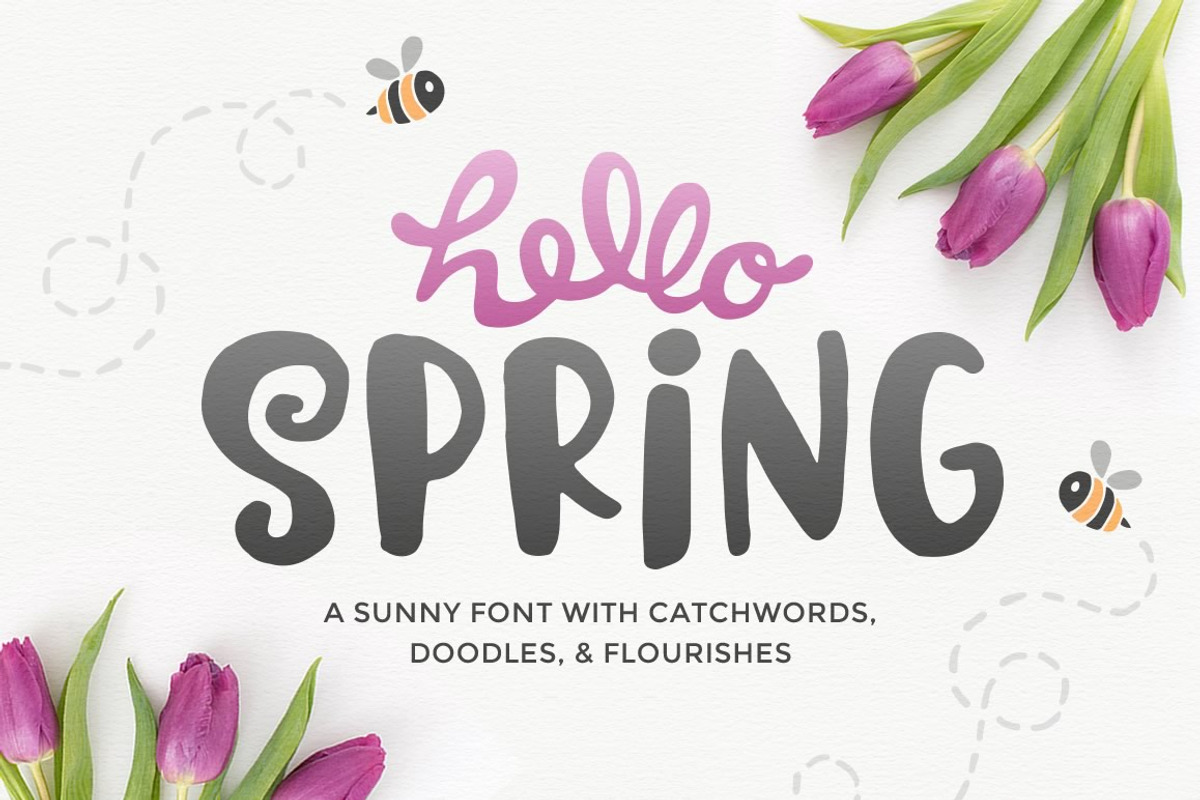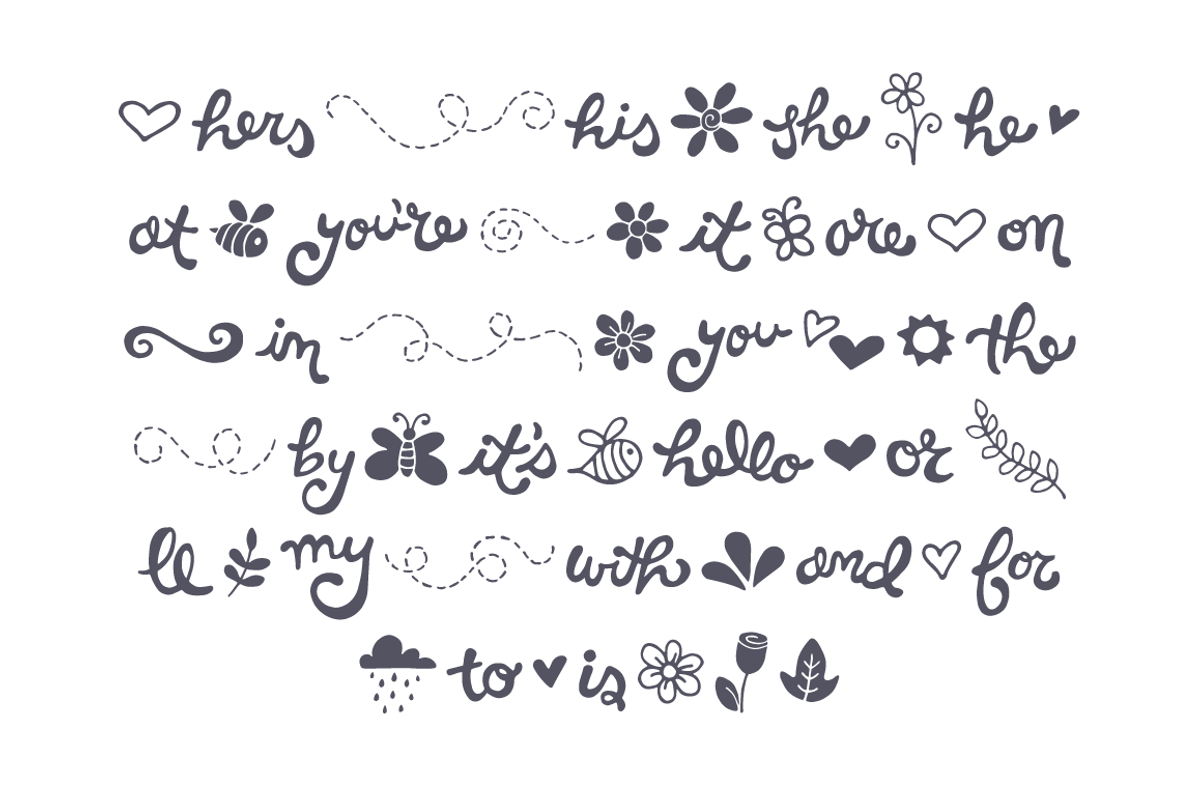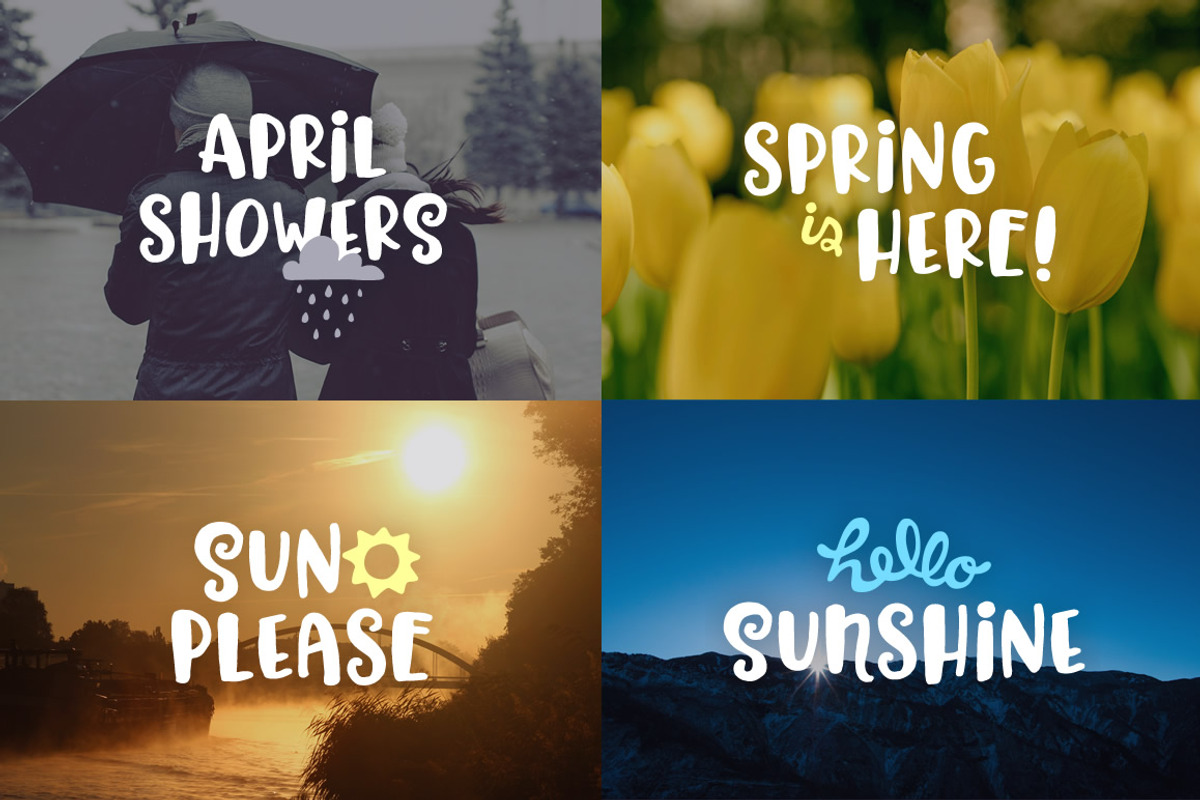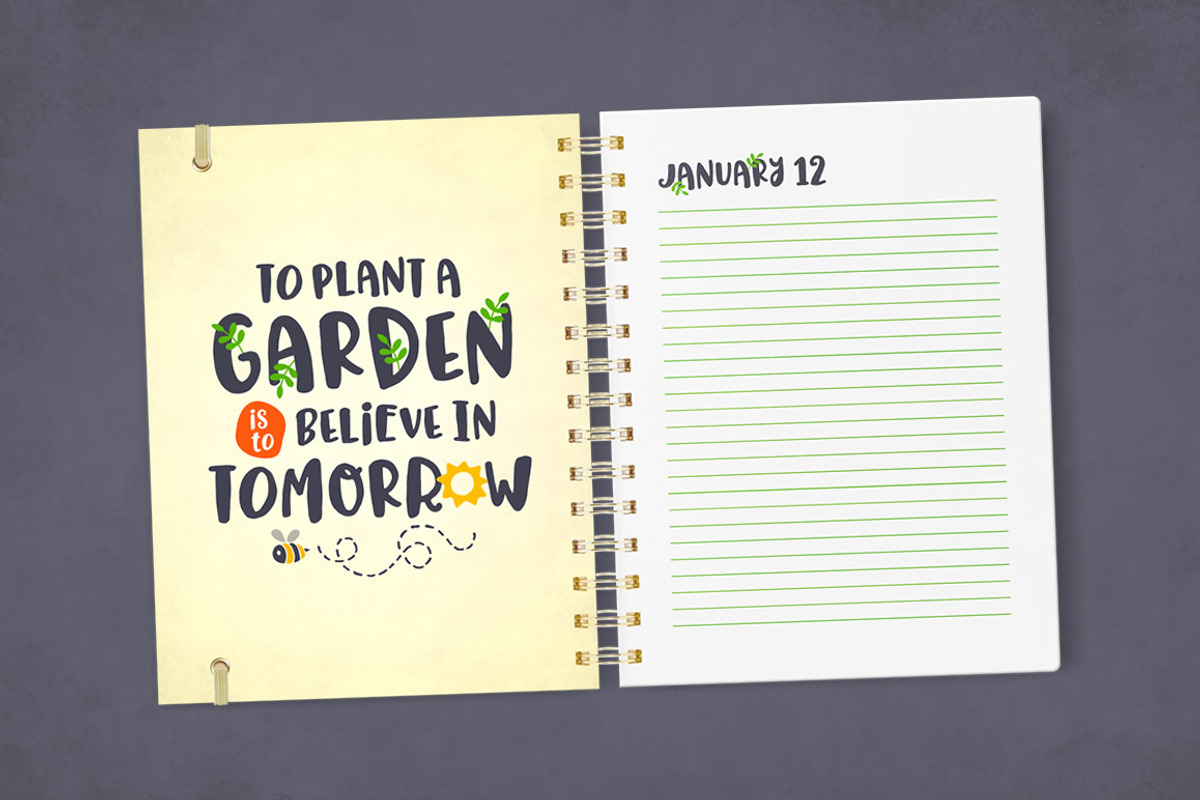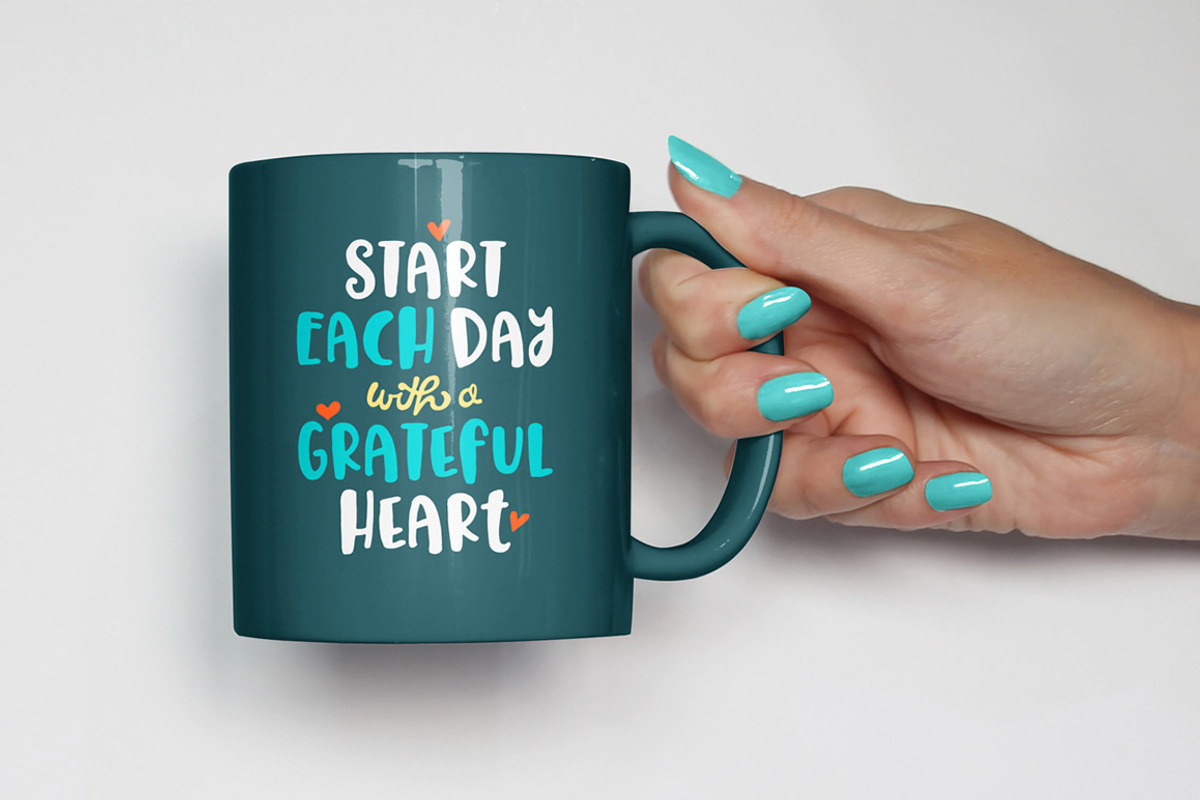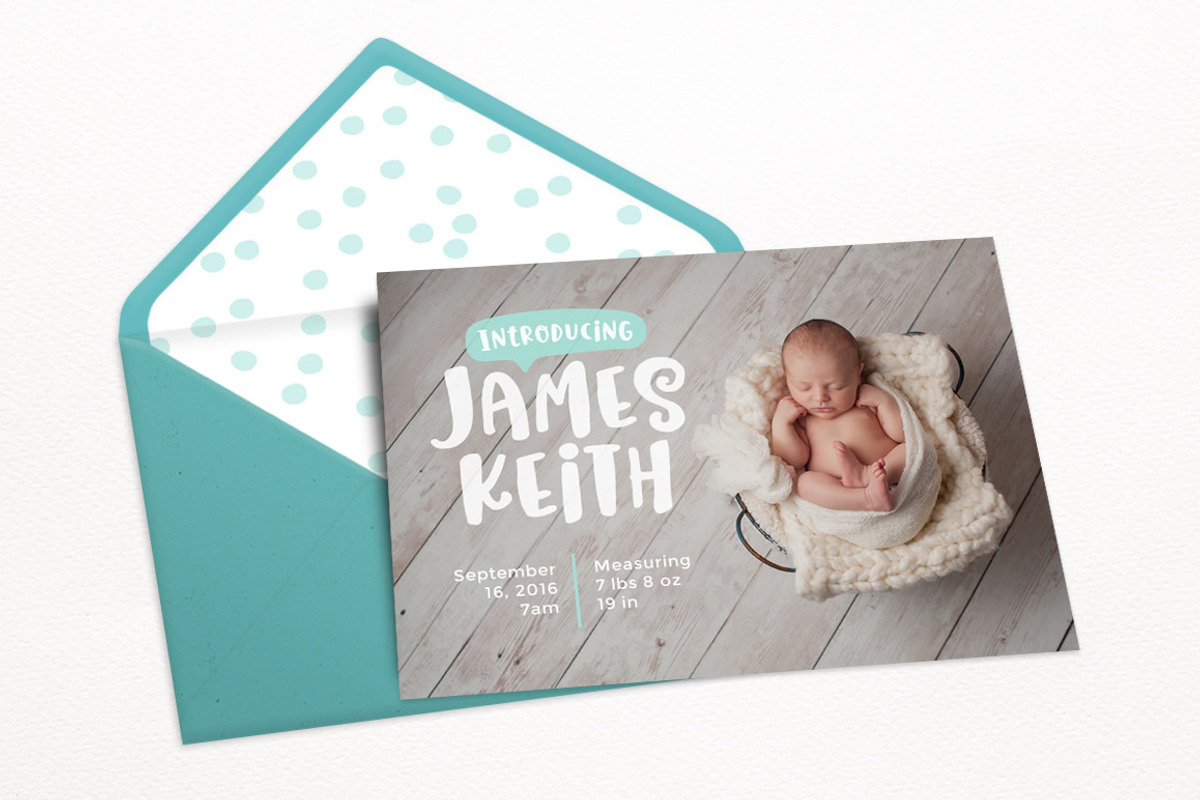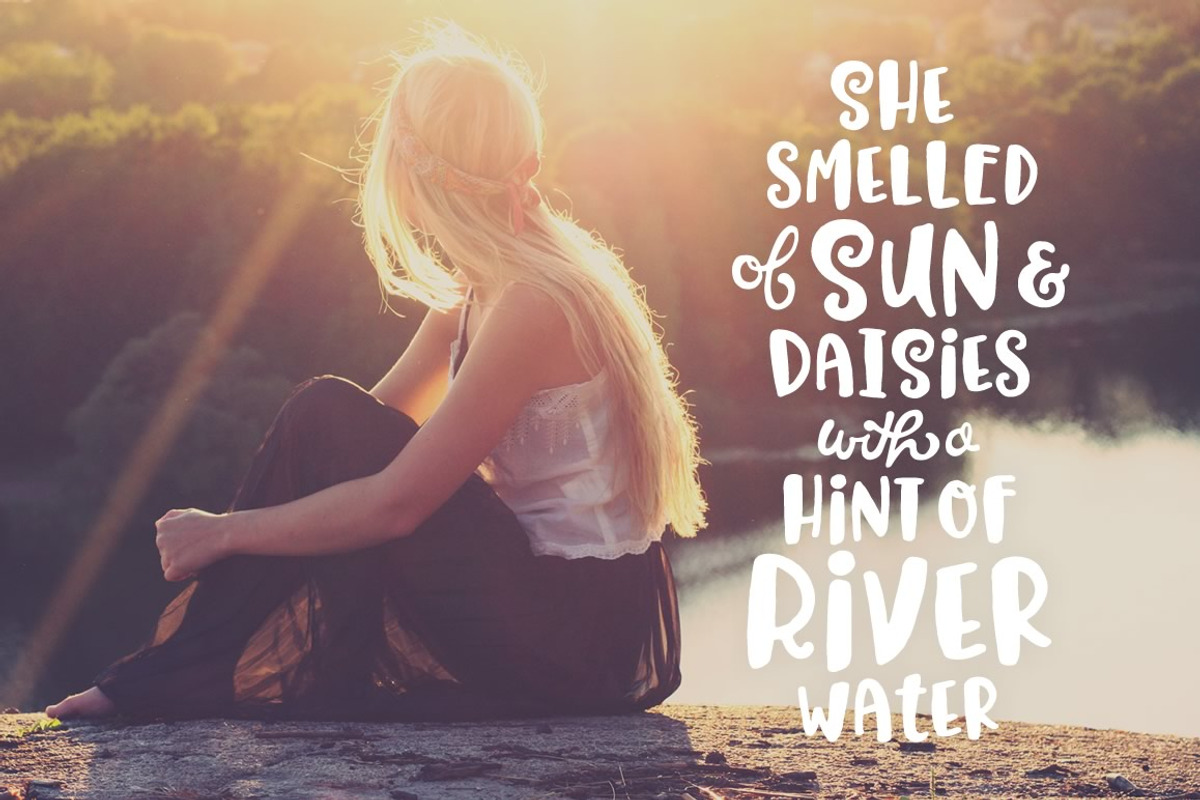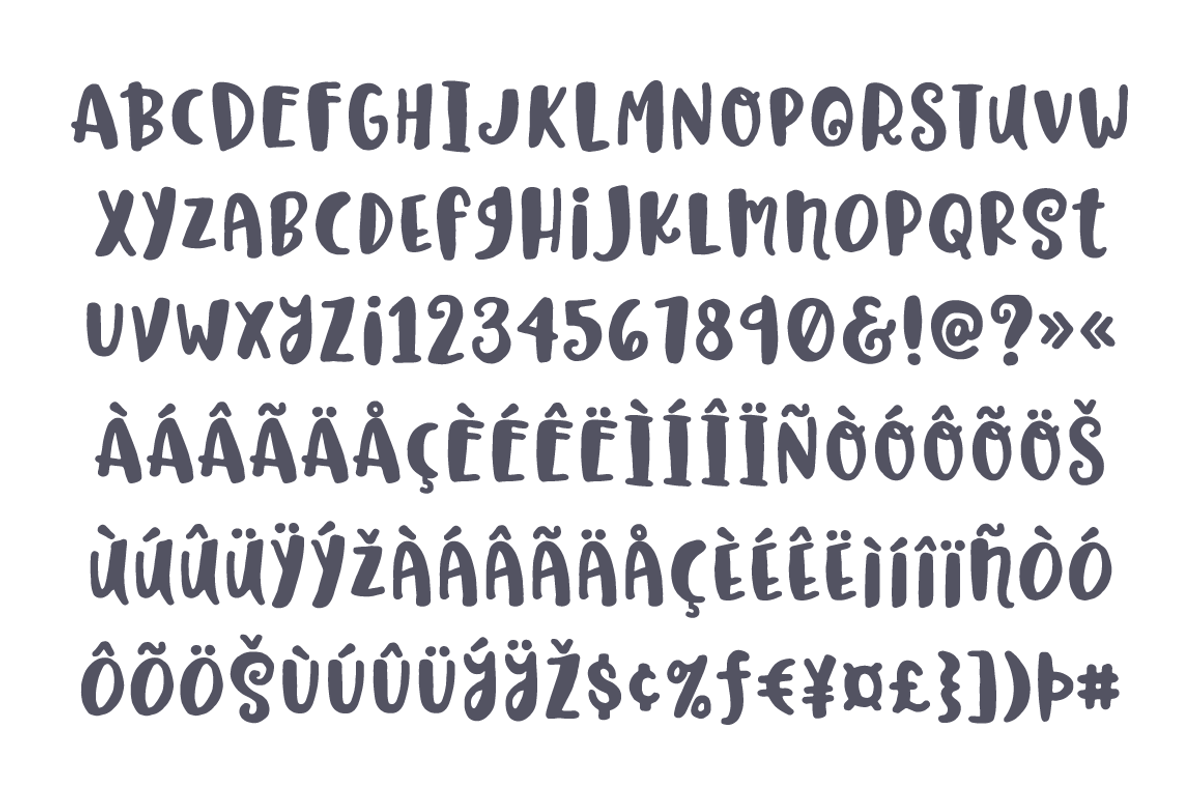
Hello Spring Font
Hello Spring Font by Denise Chandler is a font selected for branding, posters, packaging, typography.
Hello Spring Font by Denise Chandler fits naturally into Branding, posters, packaging, typography.